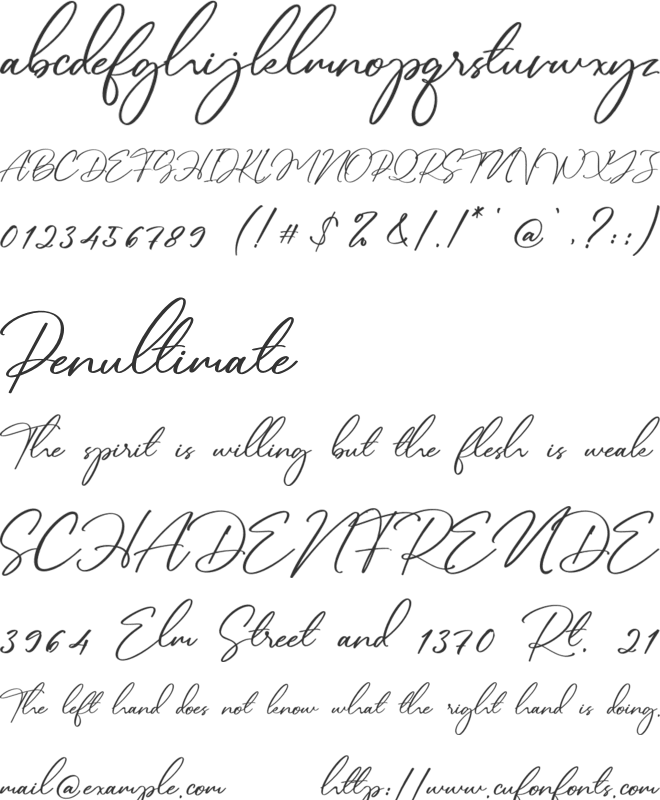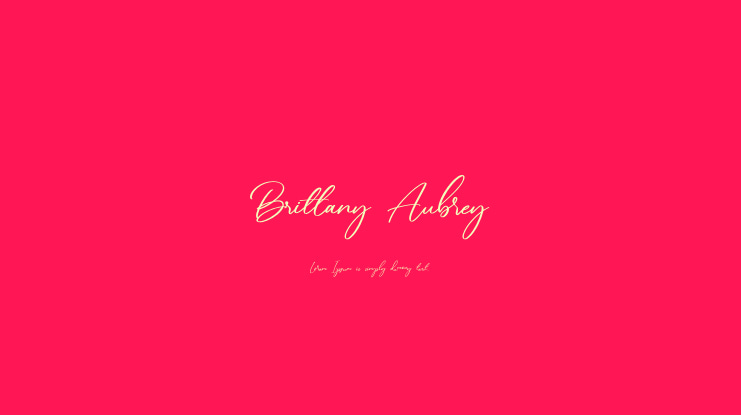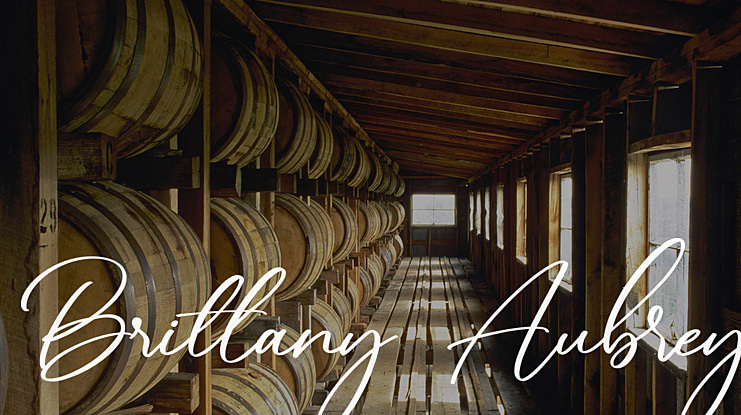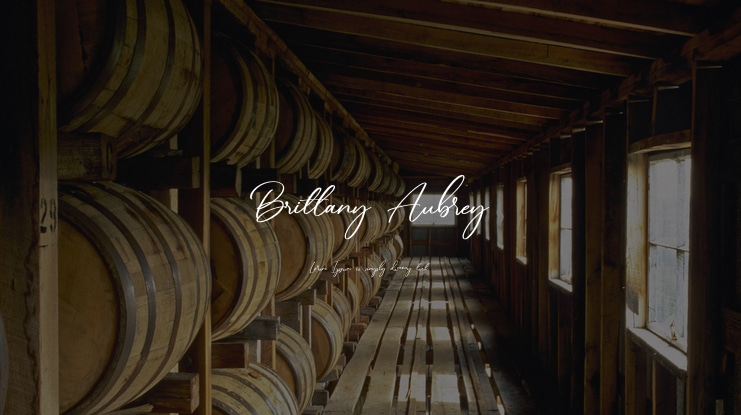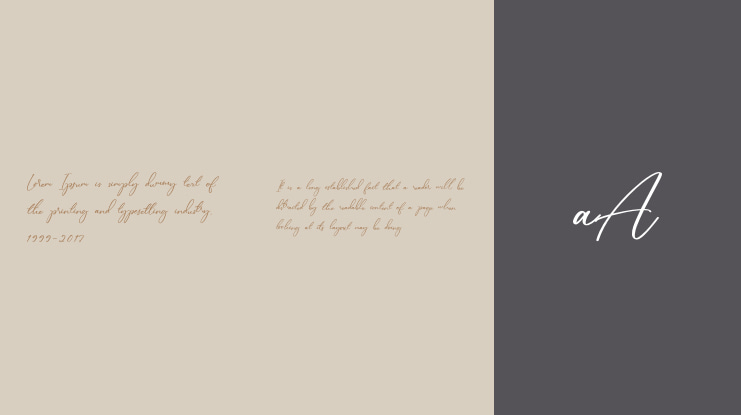
Brittany Aubrey Font
This font is a beautiful handwritten typeface, with a signature style. It’s designed and shared by Fonttype. From greeting cards to headlines, this font will guarantee a romantic touch to each of your creations! Love Twist Duo is PUA encoded which means you can access all of the glyphs and swashes with ease.